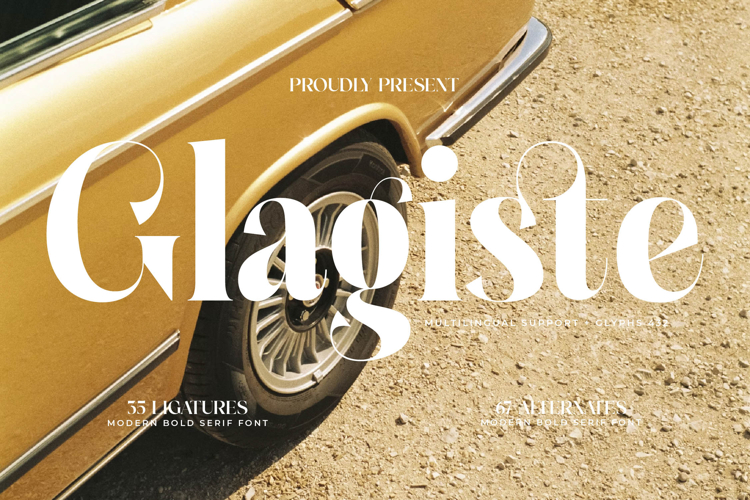
Glagiste - Modern Bold Serif Font
Command Attention. Elevate your design projects with Font Glagiste - Modern Bold Serif Font Serif Display, a typeface that masterfully blends traditional elegance with a striking contemporary edge. Its distinctive bold serif structure, characterized by beautiful high-contrast strokes and refined curves, ensures your message is delivered with undeniable impact and a sophisticated presence. This font is crafted to imbue every application with a sense of refined luxury and a truly modern aesthetic.
Unlock Unparalleled Creative Freedom. Font Glagiste - Modern Bold Serif Font Serif Display offers an exceptional level of design flexibility, empowering designers to create truly unique and memorable typography. Featuring an impressive collection of 55 ligatures and 67 alternates, this font allows for extensive customization, enabling you to fine-tune your headlines and titles for maximum visual appeal and a bespoke feel.
Connect Globally with Confidence. With its extensive multilingual support, Font Glagiste - Modern Bold Serif Font Serif Display adapts seamlessly across global markets, making it incredibly versatile for international projects. This crucial feature ensures your branding and messaging resonate effectively with diverse audiences, establishing a consistent and professional identity worldwide.
Perfect for Premium Experiences. Font Glagiste - Modern Bold Serif Font Serif Display is the quintessential choice for projects demanding a touch of opulence. It's perfectly suited for luxury branding, high-end editorial layouts, prestigious fashion magazines, premium packaging, sophisticated invitations, and impactful display headlines. Let this font be the foundation for an unforgettable visual narrative that leaves a lasting impression.